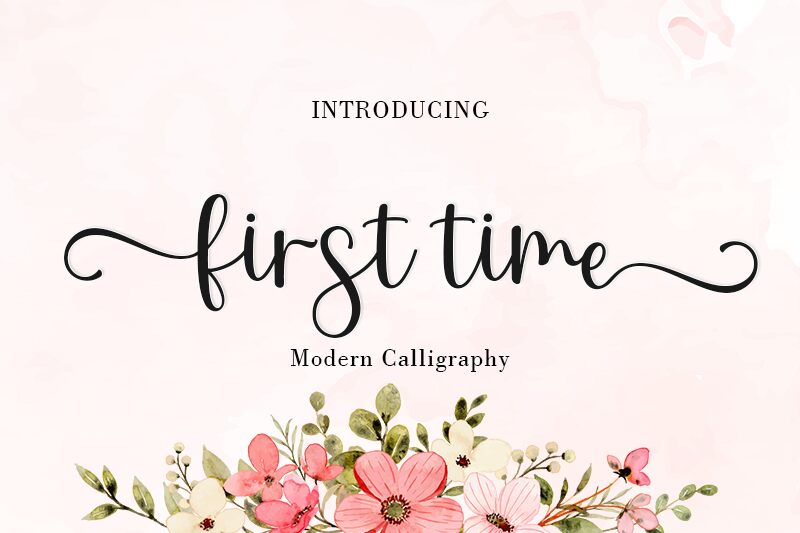
First Time, a captivating semi-light handwritten font created by Amarlettering - Takiy, adds a touch of elegance and whimsy to any project. With its graceful curves and fluid strokes, this font is perfect for invitations, greeting cards, and personalized stationery. Its semi-light weight lends an airy feel to blog headers and social media graphics. Whether you're designing a wedding invitation or crafting a logo for a boutique brand, First Time brings an enchanting charm that ensures your project stands out from the crowd. Let this delightful typeface be your go-to choice for all things creative.
First time